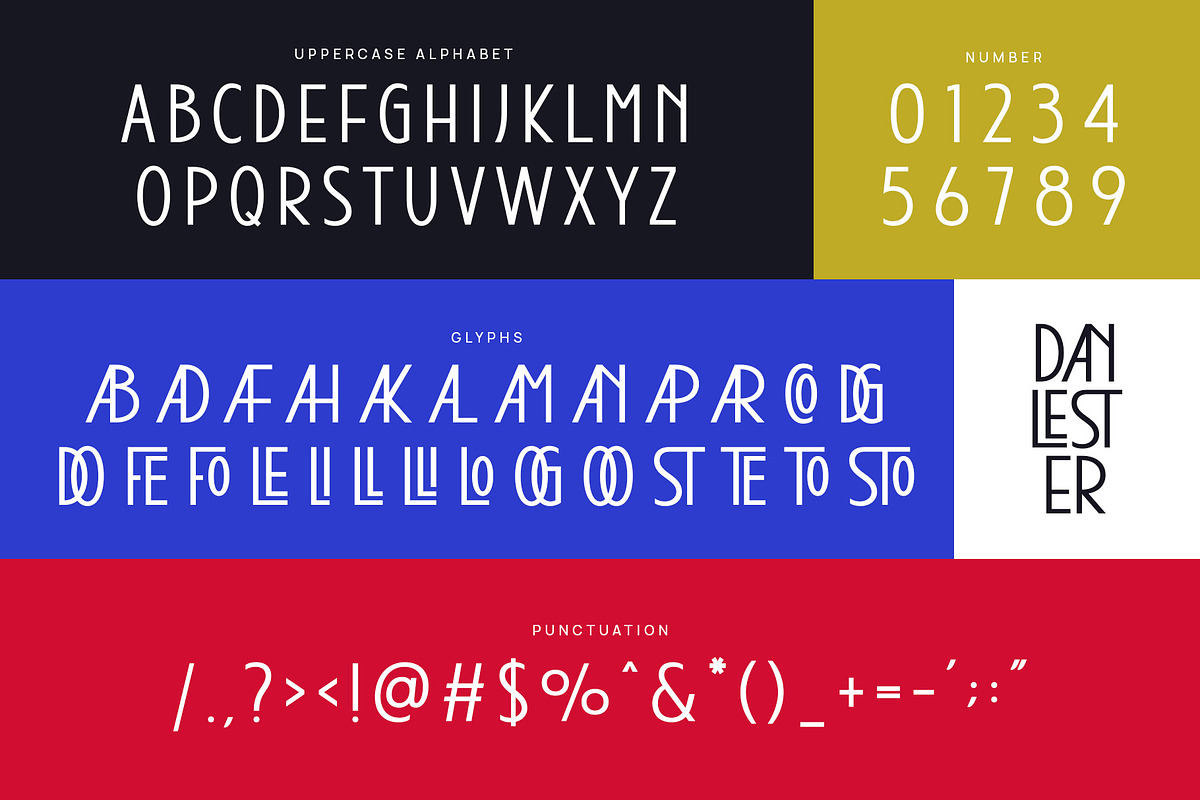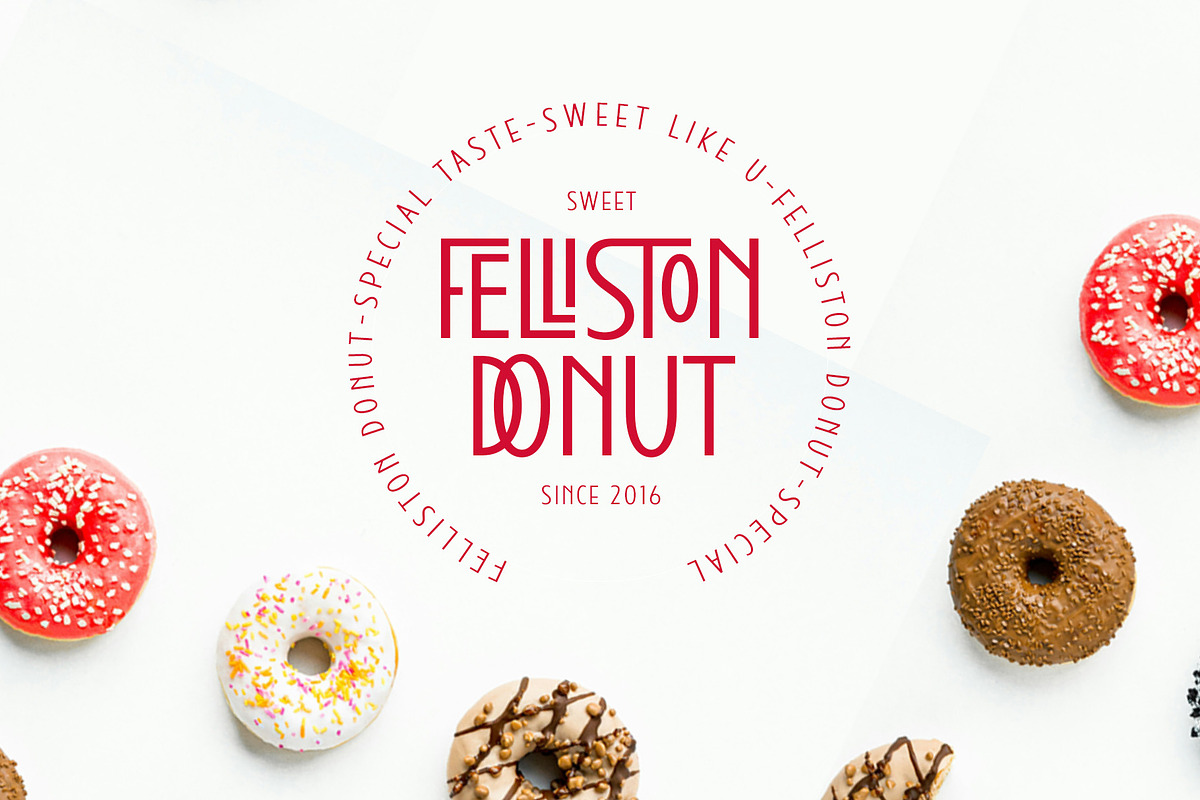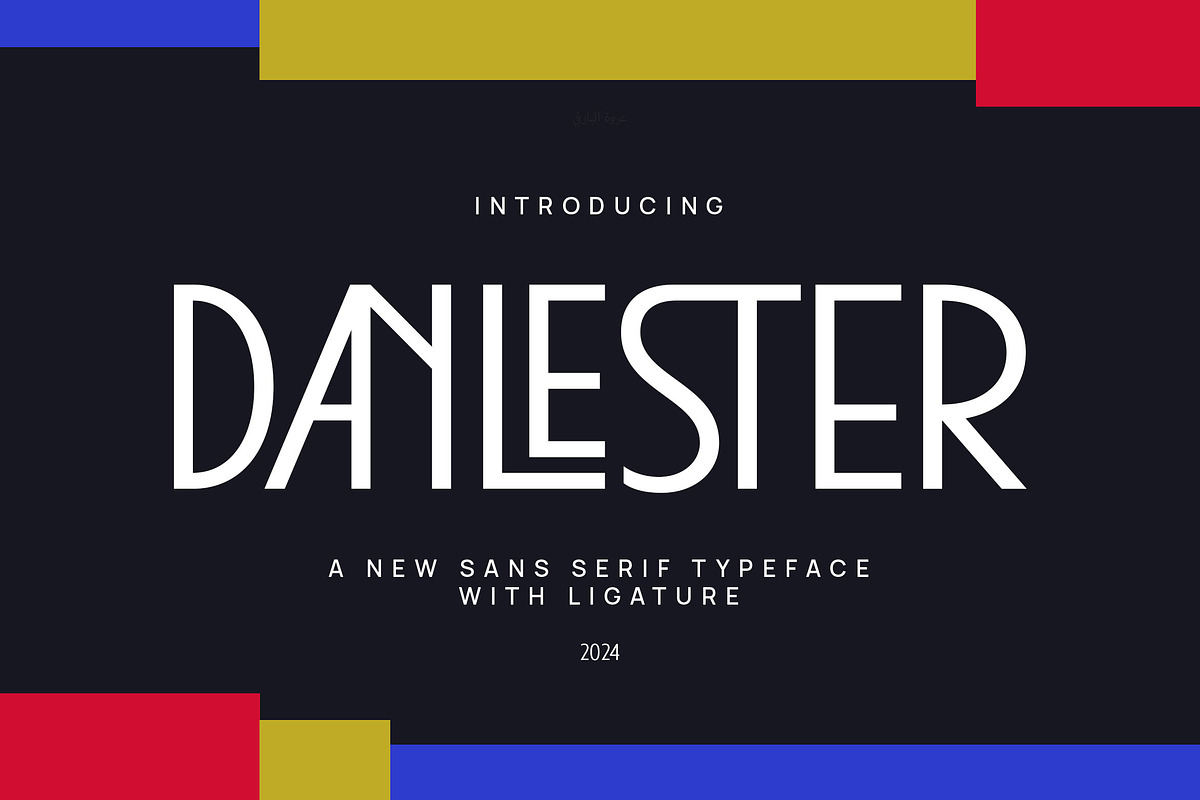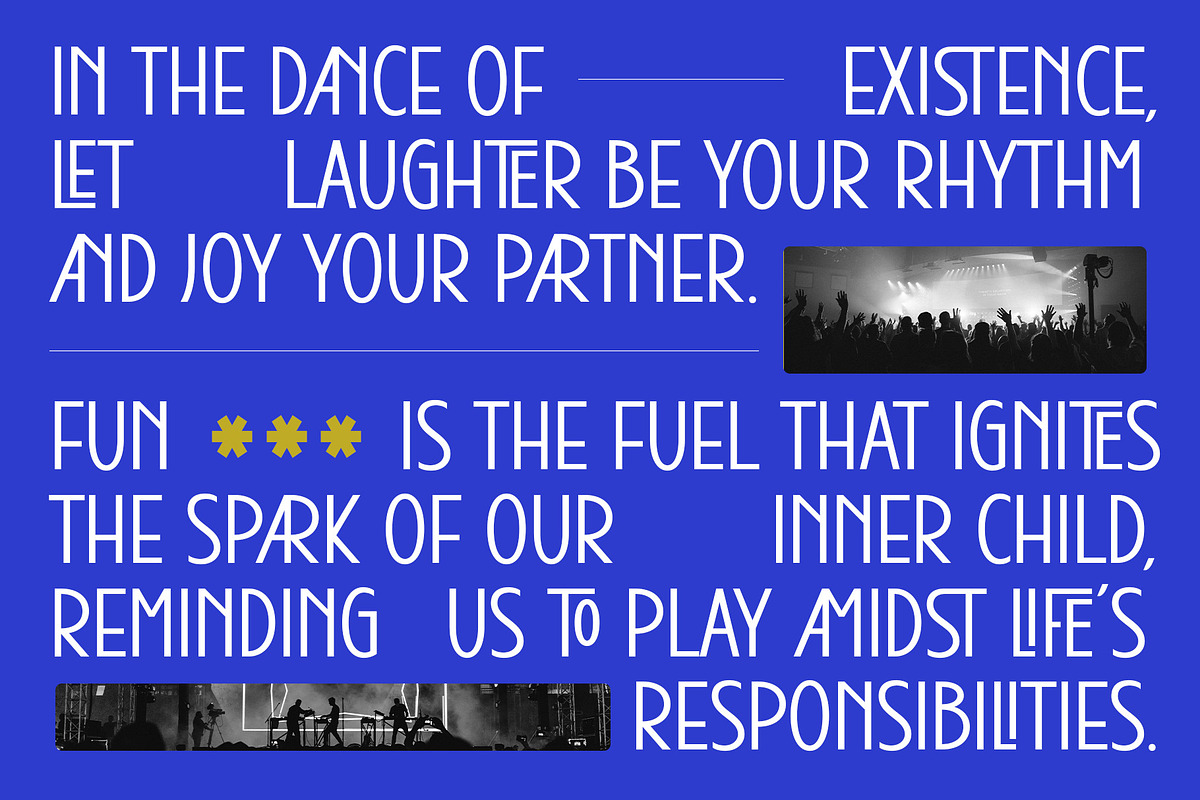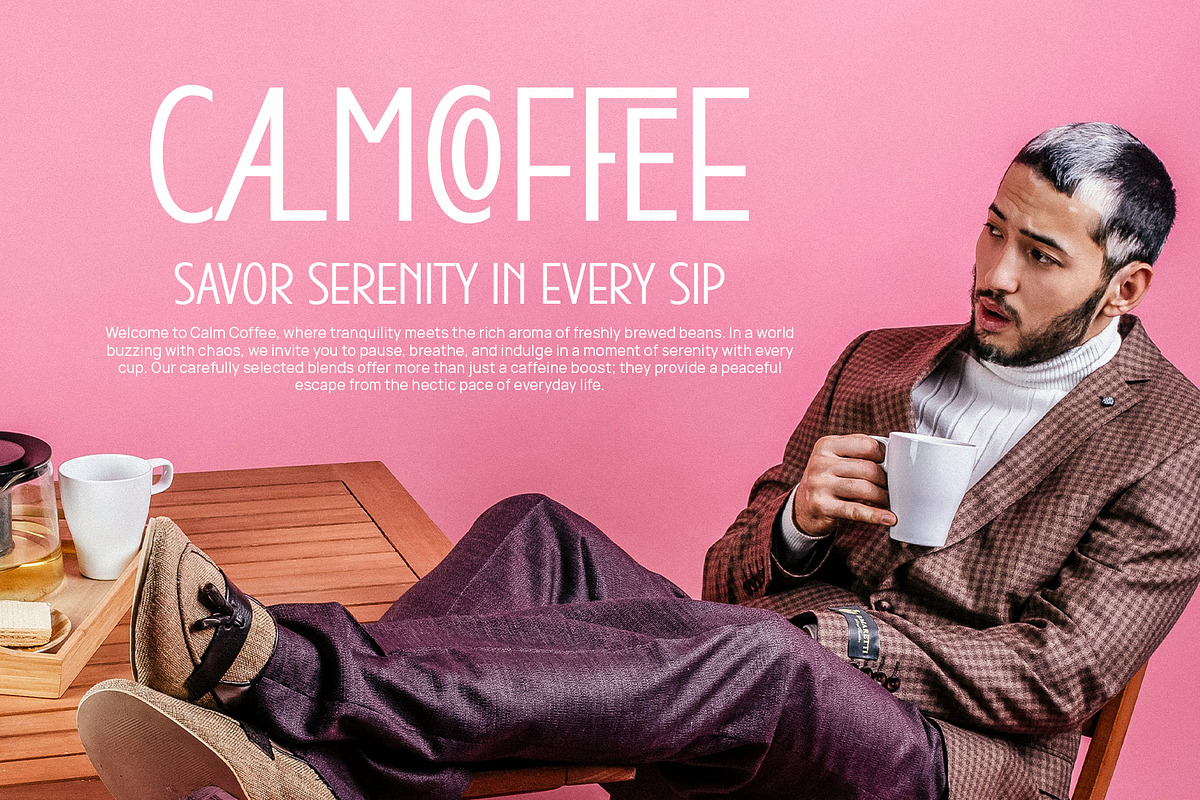
Danlester - Modern Ligature Sans
Introducing Danlester - Modern Ligature Sans Serif. Danlester is a modern and simple font, best used as a display for headings, logos, branding, magazines, product packaging and invitations. Thank you.